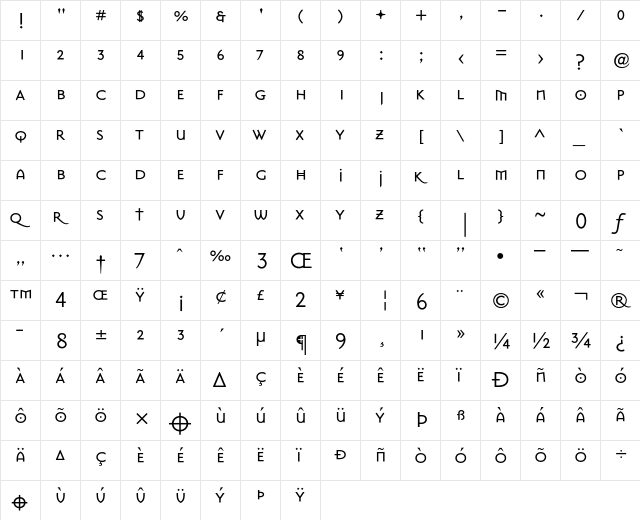
MasonSans Super
Design Context for MasonSans Typeface
MasonSans takes a measured approach to typography — its balanced proportions and neutral character make it a reliable workhorse for both digital and print work.